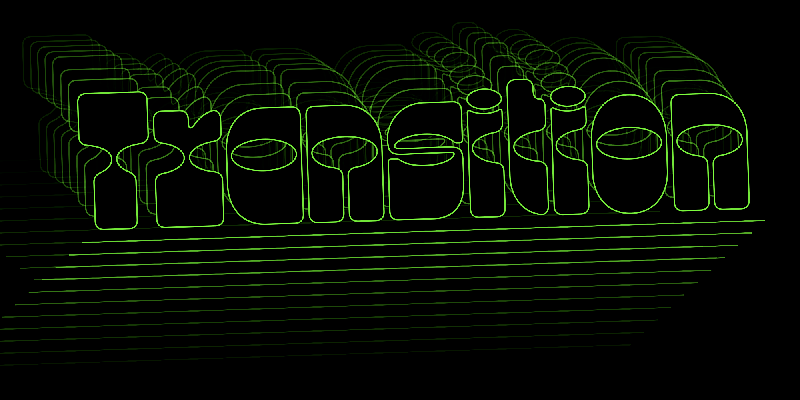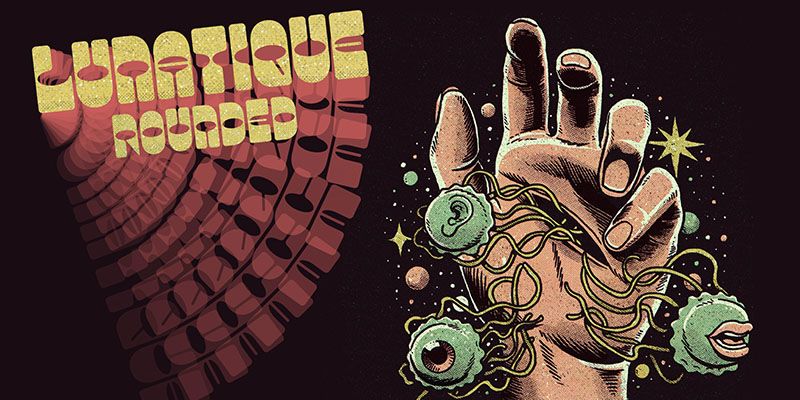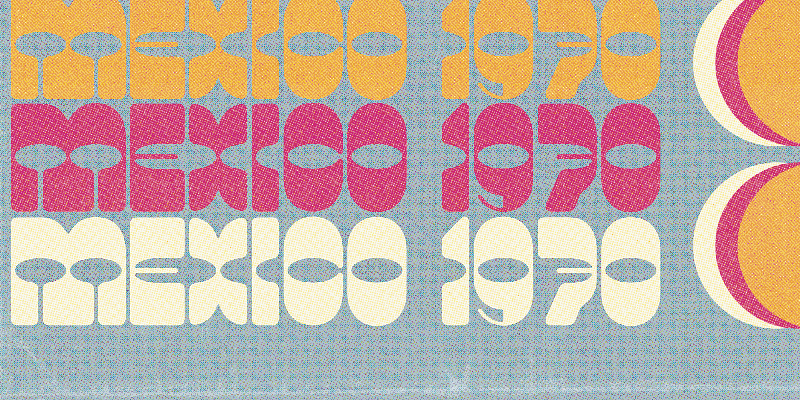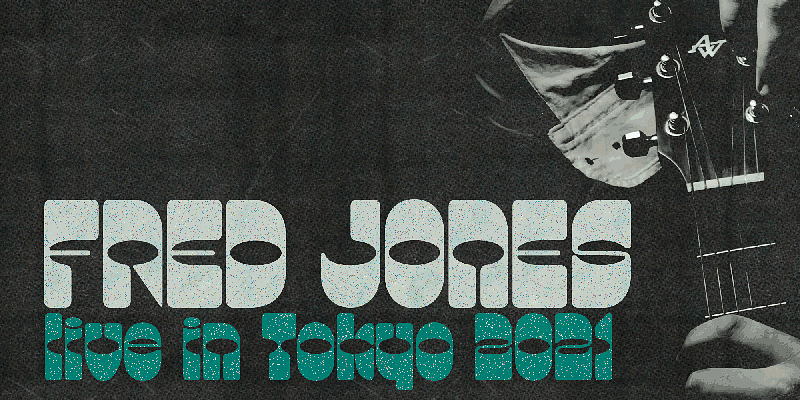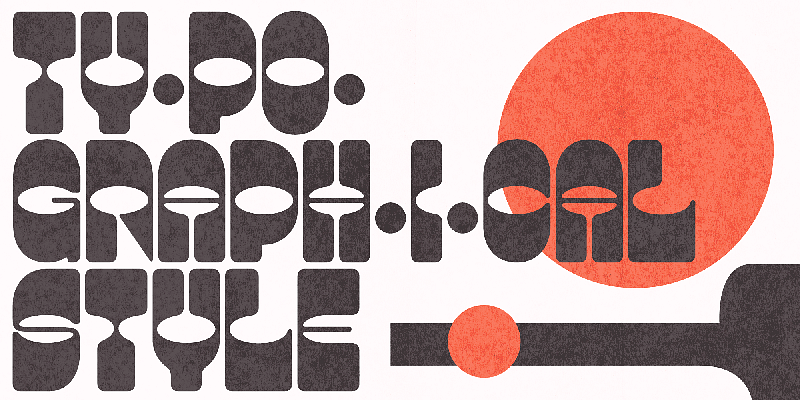
Lunatique is a highly decorative typeface inspired by the Lucky typeface, designed in 1972 by André Pless for the Mecanorma permanent type contest. The style was later released as Letterpress transfer sheets. These digital versions will be way easier to use. Packaging, posters, book covers, and other applications are endless. Lunatique is available in three widths, with some alternates, too. It has quite a seventies flair, right? Give them a go and make your text shine!